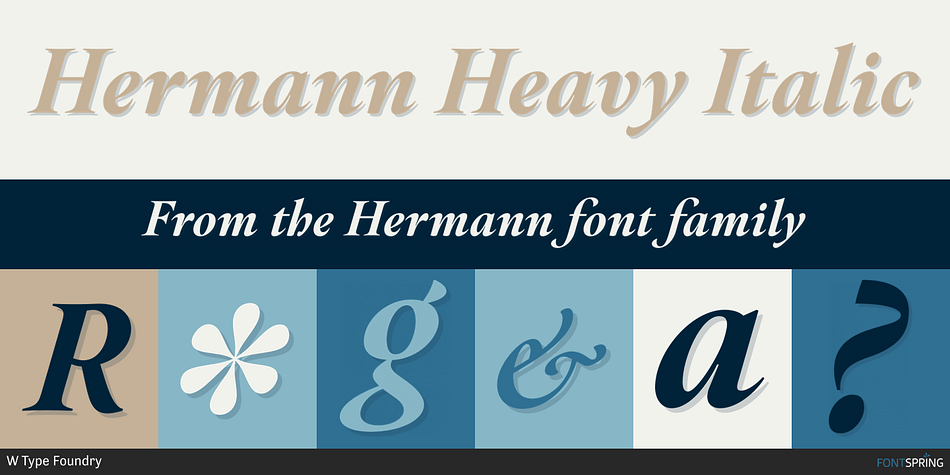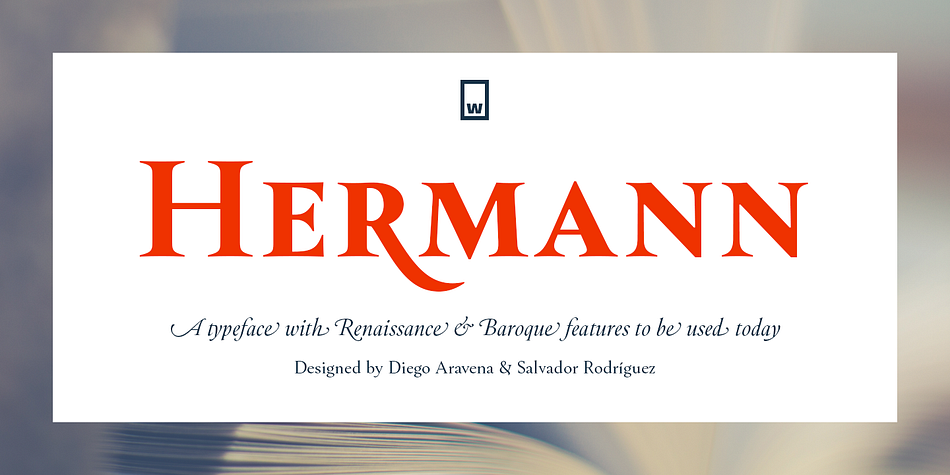
Hermann Heavy Italic
Designed by Diego Aravena and Salvador Rodríguez, Hermann is a serif font family. This typeface has ten styles and was published by W Type Foundry.
Hermann is one of our most readable typefaces so far. Since last year, the W Design team had been examining closely the possibility of developing a text font. Thus, we dug into concepts within some of our favorite novels, such as The Steppenwolf and Brave New World, written by Hermann Hesse and Aldous Huxley respectively. Ideas like duality, surrealism, and wildness mainly appeared. With these concepts in mind, we analyzed carefully the typefaces used in both Hesse’s and Huxley’s creations; Sabon and Garamond showed up catching our attention and, of course, awakening our admiration. Consequently, the challenge was to combine the key features of these fonts with the concepts already identified. At first, we made a text font which was suitable to compose long texts. However, we realized that we needed to refine some characteristics to convey all the ideas. A full set of capital discretionary ligatures was designed, which convert Hermann in a display font when is required. We also designed swashes (from A-Z) and final forms (in letters h, k, m, n, r and x in romans, and in letters a, d, e, h, i, l, m, n, r, t, u, x and z in italics), conveying more dynamism and versatility when it comes to composing visually.
Hermann was designed not only to be accurate in terms of legibility but also to be wild and bold. That is why we took a big leap and designed from the beginning a font that is inspired by the world of 20th-century novels, using the name of one of its greatest exponents, Hermann Hesse.